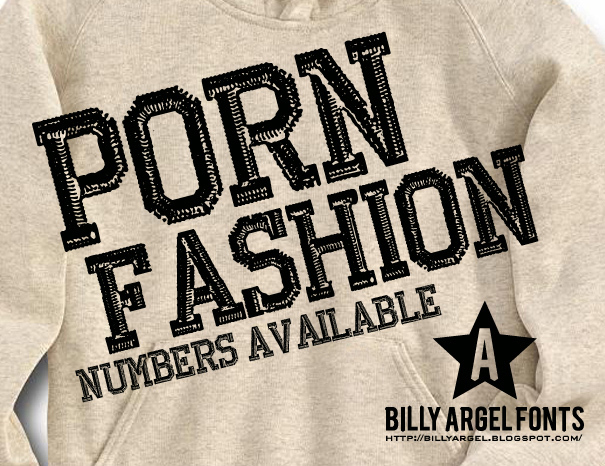
Porn Fashion by Billy Argel is a free eroded Western display font with tall slab-serif letters and the rough authority of old frontier signage. Dense scratches, chipped edges, and uneven ink-like patches give each form a heavily weathered, hand-printed surface.
It can turn a title into a battered saloon sign, making it especially apt for Western film posters and game graphics. The engraved texture also suits whiskey packaging and country music merchandise. Its strongest role is frontier-themed entertainment artwork.